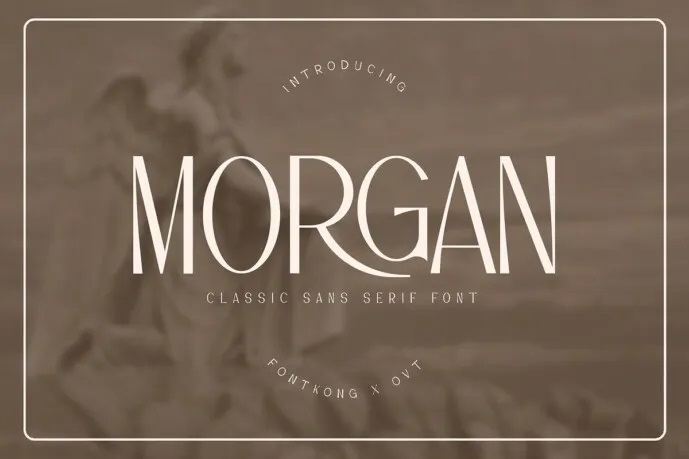
Morgan Sans Font
Morgan Sans Font is a beautiful sans serif font that gives any design the right dosage of simplicity and professionalism. Morgan stands out as a perfect typeface that complements any project due to its simple but elegant lines.
Designed carefully with the inspiration of traditional typeface and fine tuned for the contemporary aged look, Morgan Sans is a superb font. If you are working on editorial layouts, branding projects or any web and graphic designs, then this font is professional, graceful.
Starting with all the capital and small alphabet letters, all the numbers, and other symbols, MorganSans is a font that can meet the expectations of any designer. It is easy on the eyes and minimalistic, which accomplishes its goal of remaining as applicable and easy on the eyes as possible in a multitude of settings.
Take your text to the next level with the beauty of true elegance and style of Morgan that creates simplicity that never goes out of style.
Morgan Sans Serif Font